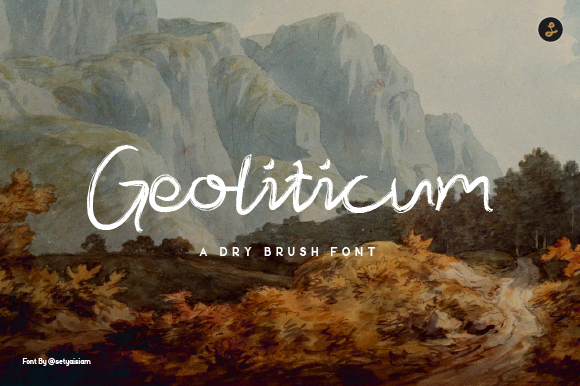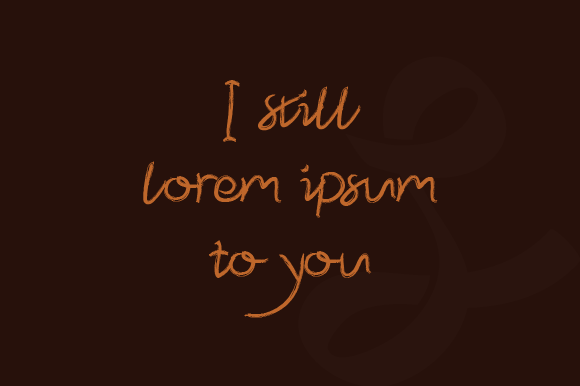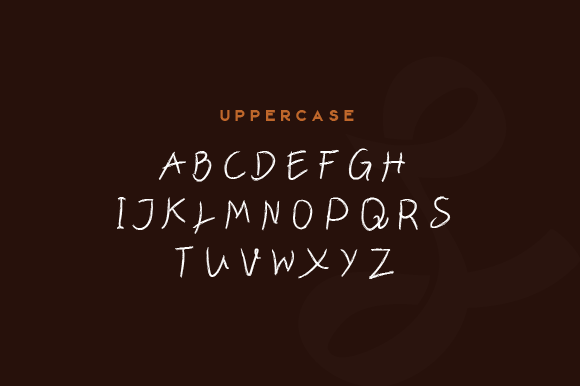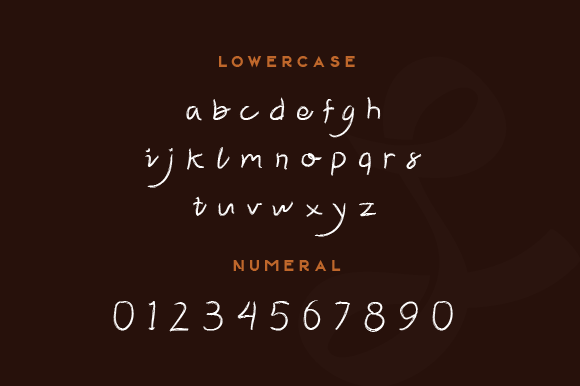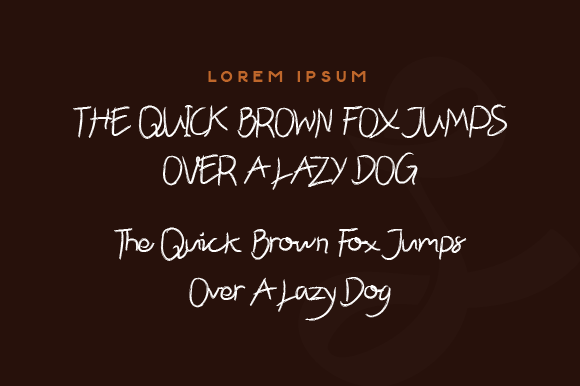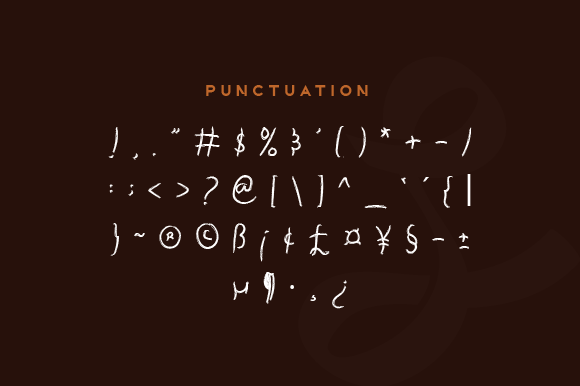
Geoliticum Font
About Geoliticum Font
Geoliticum is a casual, fun handwritten font, created by using a brush pen. Clean and a little bit quirky, this font is the perfect fit for all of your logos, branding, social media, and crafty DIY projects.